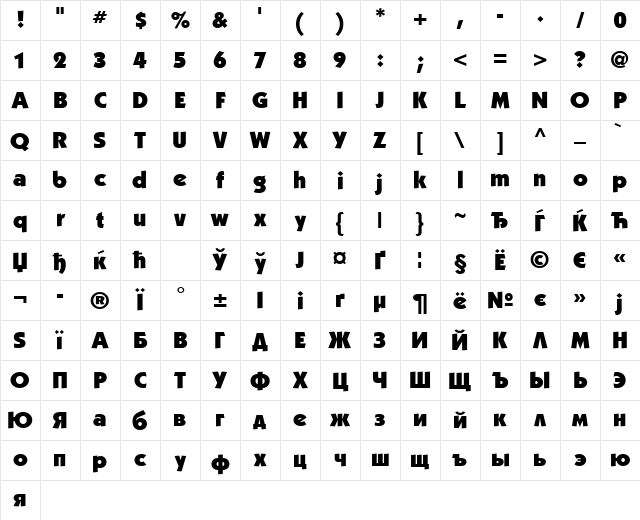
Complete KabelCTT Ultra Regular glyph index. Displaying only characters natively supported by KabelCTT Ultra Regular font.
KabelCTT Ultra is a composed and adaptable typeface that performs quietly and consistently across a wide range of design contexts.